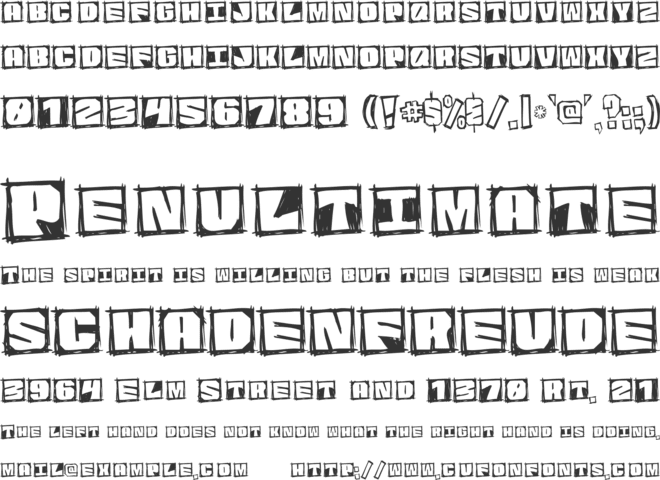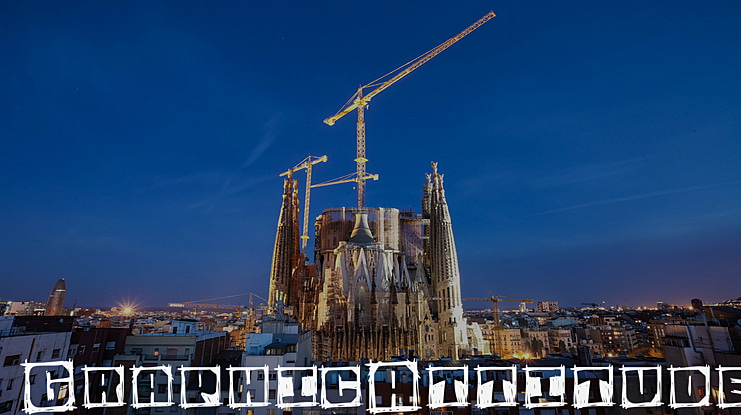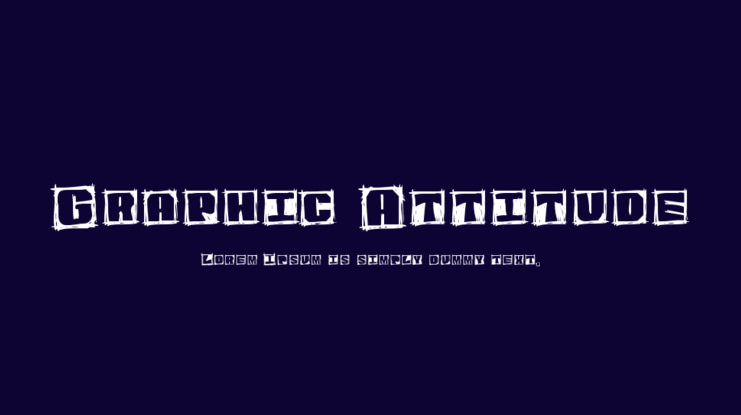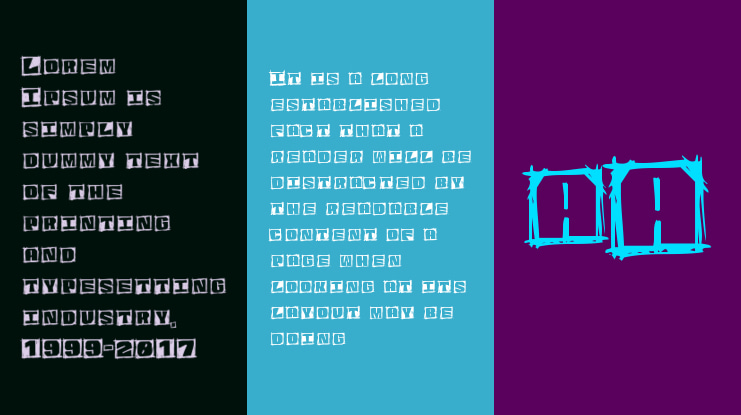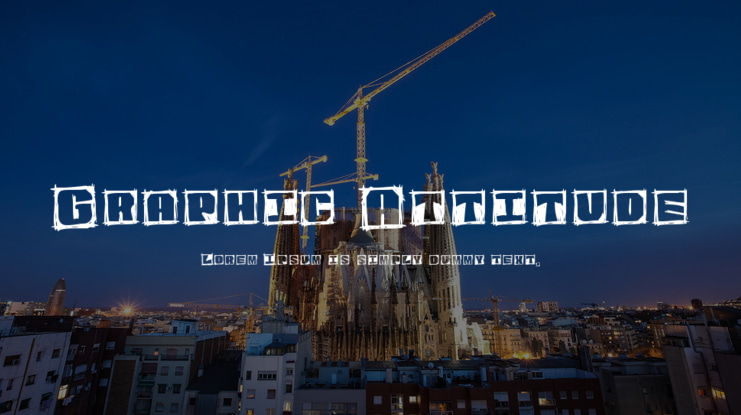
Graphic Attitude Font
In 1999, Filipino designer/indie comic artist Antonio Bucu wrote: Graphic Attitude is one of my feeble attempts of a RayGun type, although I actually designed this typeface way, back in '85 when I was in High School. The font is freeware, as a show of support for indie comic creators, although I would appreciate "donations" so I can create more typefaces (and hopefully, produce my own comic). Also I would appreciate a byline if ever you do use my fonts and get published.